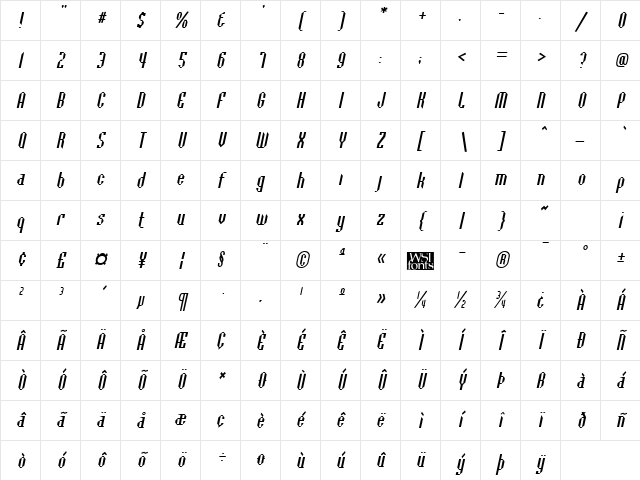
BaccusBevel Italic
Design Context for BaccusBevel
BaccusBevel is a composed and adaptable typeface that performs quietly and consistently across a wide range of design contexts. The slanted form adds forward momentum and visual energy.
Pro Tip: Use BaccusBevel for emphasis, pull quotes, and subheadings where its slanted energy can add rhythm to the layout.